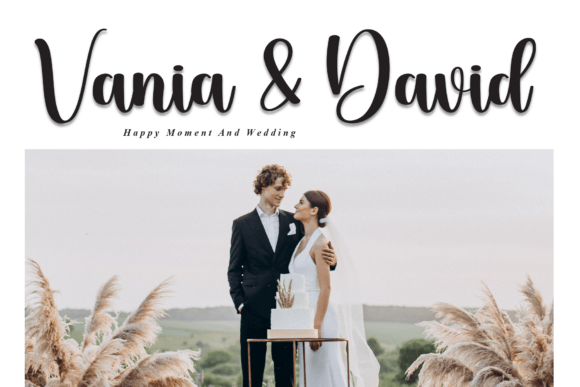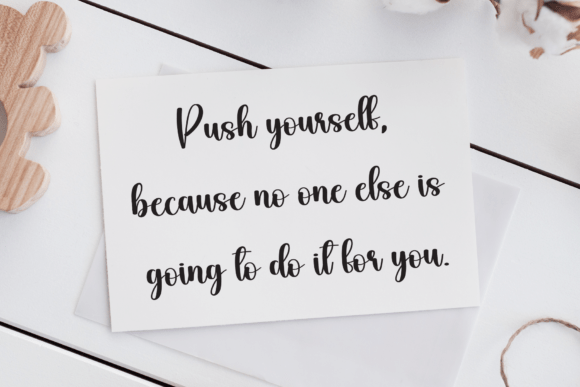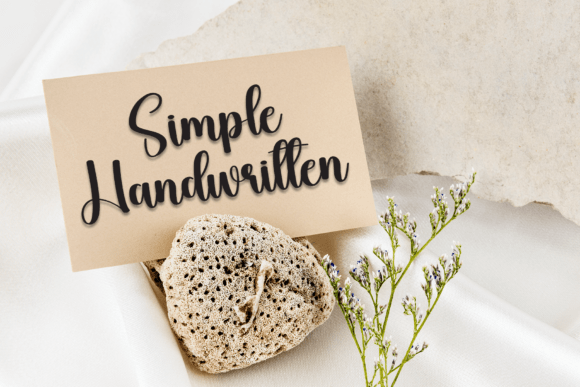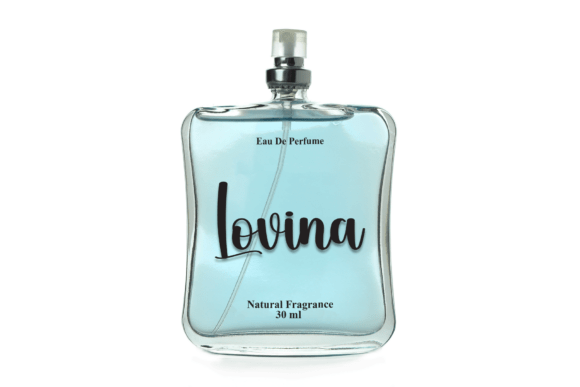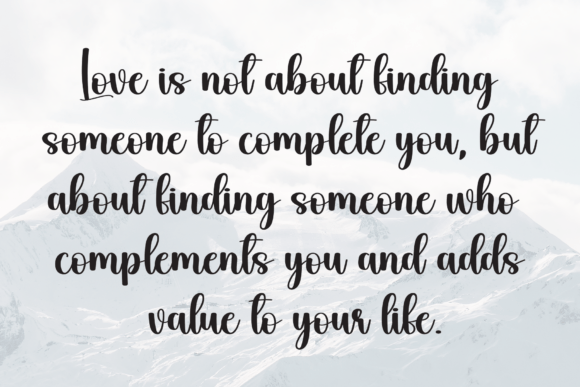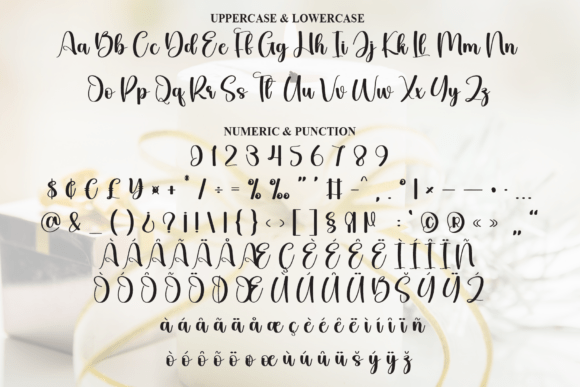
The Sweetest Touch: Introducing Baking Font
Have you ever stared at a blank canvas, wondering how to bring your creative vision to life? For designers, this moment is all too familiar. It’s the moment when inspiration strikes, and the perfect font can make all the difference. That’s where Baking Font comes in – a stylish handwritten script font that adds a touch of elegance and sophistication to any design.
With its smooth, flowing strokes, Baking Font is the perfect choice for branding, invitations, and creative projects that demand a personal, artistic touch. Its balance of charm and modernity makes it a valuable addition to any designer’s toolkit, allowing them to create unique and memorable designs that stand out from the crowd.
Baking Font Key Features
- Unique Characteristics: Baking Font features a unique, hand-drawn design with a warm and inviting tone, making it perfect for baking-related businesses and food brands.
- Character Set: The font includes a comprehensive set of characters, including uppercase and lowercase letters, numbers, punctuation marks, and special characters.
- Multi-Language Support: Baking Font supports multiple languages, including English, Spanish, French, German, Italian, and many more, making it a great choice for international brands.
Baking Font Review
As a designer, I’ve had the chance to work with various fonts, and I must say, Baking Font is a unique one. Here’s my honest review:
- Playful and whimsical feel: The font is perfect for baking-themed designs, websites, or social media posts.
- High-quality glyphs: The font’s glyphs are well-designed and easy to read, making it suitable for a wide range of applications.
- Customization options: The font comes with various styles, from regular to bold, and even a special ‘icing’ style for added flair.
- Limited language support: The font is primarily designed for English, which may limit its use for multilingual projects.
- Lack of web font support: Baking Font may not be optimized for web use, which could lead to performance issues or font loading delays.
Overall, I’d say Baking Font is a fun and creative addition to any design project, but it’s essential to consider its limitations before using it extensively. With some careful planning and attention to detail, this font can bring a delightful touch to your designs.
Tips for Getting the Most Out of Baking Font
Use Baking Font to create eye-catching headings and titles in your design projects.
Combine Baking Font with other font styles to create a unique and playful design aesthetic.
Experiment with different font sizes and colors to enhance the visual impact of Baking Font.
Baking Font is ideal for:
– Food and beverage branding
– Baking and cooking-related content
– Whimsical and playful designs
– Creating a nostalgic or retro vibe